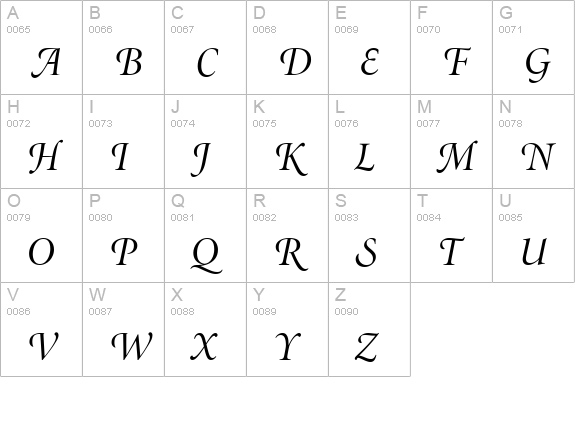
Atlantix Swash Display SSi Display Italic is a distinctive, italic variant in the Atlantix typeface family \xE2\x80\x94 well suited to design and typography projects.
The Atlantix Swash Display SSi Display Italic font is a stunning and elegant typeface that exudes sophistication and style. Its graceful curves and intricate swashes make it perfect for adding a touch of luxury to any design project. This italic version adds a sense of drama and flair, making it ideal for headlines, titles, and special occasions. What sets Atlantix Swash Display SSi Display Italic font apart is that it is available for free download at FontsMarket.com. This means that you can easily access this beautiful font and use it in your projects without any cost. Whether you're working on invitations, branding, or editorial designs, Atlantix Swash Display SSi Display Italic font is sure to make a statement and elevate your work to the next level. Download it today and add a touch of elegance to your creations.